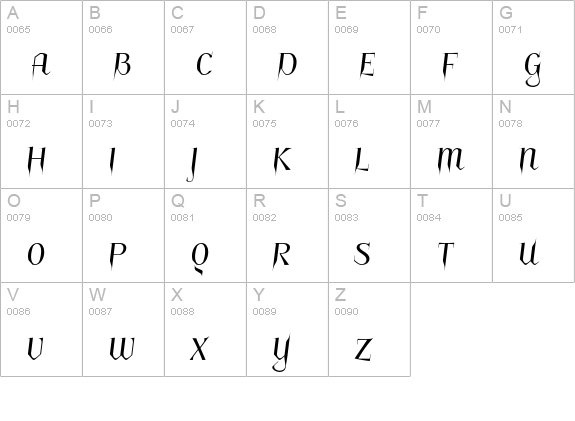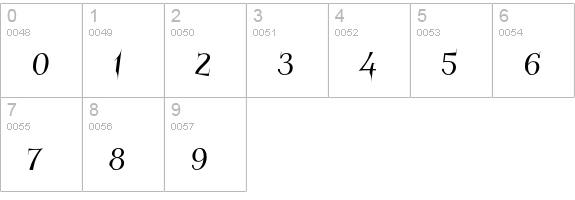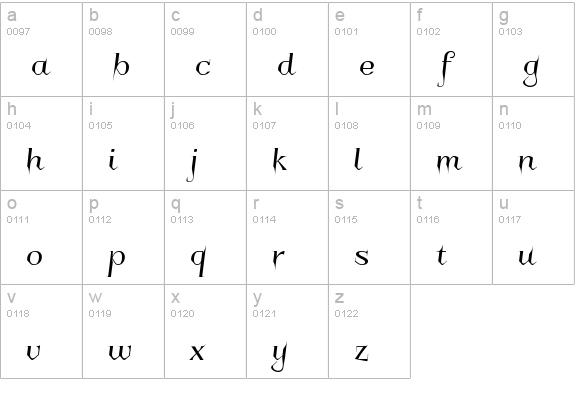
Charakterny is a stunningly unique and expressive font that embodies the essence of creativity and individuality. With its bold and distinct letterforms, this typeface exudes a charismatic charm that captivates the eye and leaves a lasting impression. Every character in Charakterny is carefully handcrafted, showcasing intricate details and a sense of artistic flair. This font is not only aesthetically pleasing, but it also possesses a versatility that allows it to be used in a variety of design projects. Whether you're designing a logo, creating a poster, or crafting a captivating headline, Charakterny is the perfect choice to add a touch of personality and character to your work. One of the most appealing aspects of Charakterny is that it is free. Yes, you read that right - this remarkable font is freely available to download at FontsMarket.com. This means that you can add this exceptional typeface to your font collection without any cost, making it accessible to designers and creatives of all backgrounds. Charakterny is more than just a font - it is a statement. It breaks free from the constraints of traditional typography, allowing you to unleash your imagination and bring your designs to life in ways you never thought possible. So why wait? Download Charakterny today and let your creativity soar.